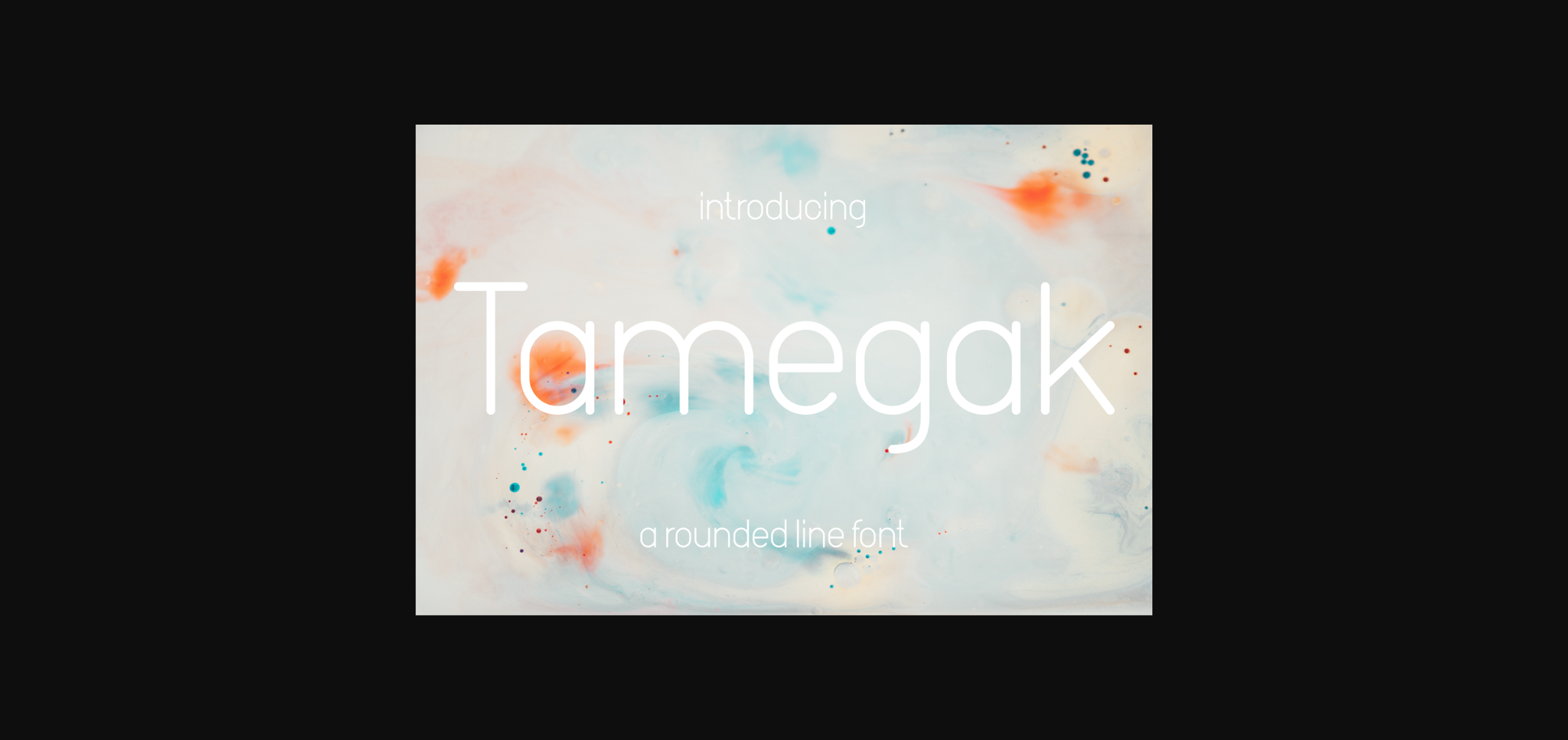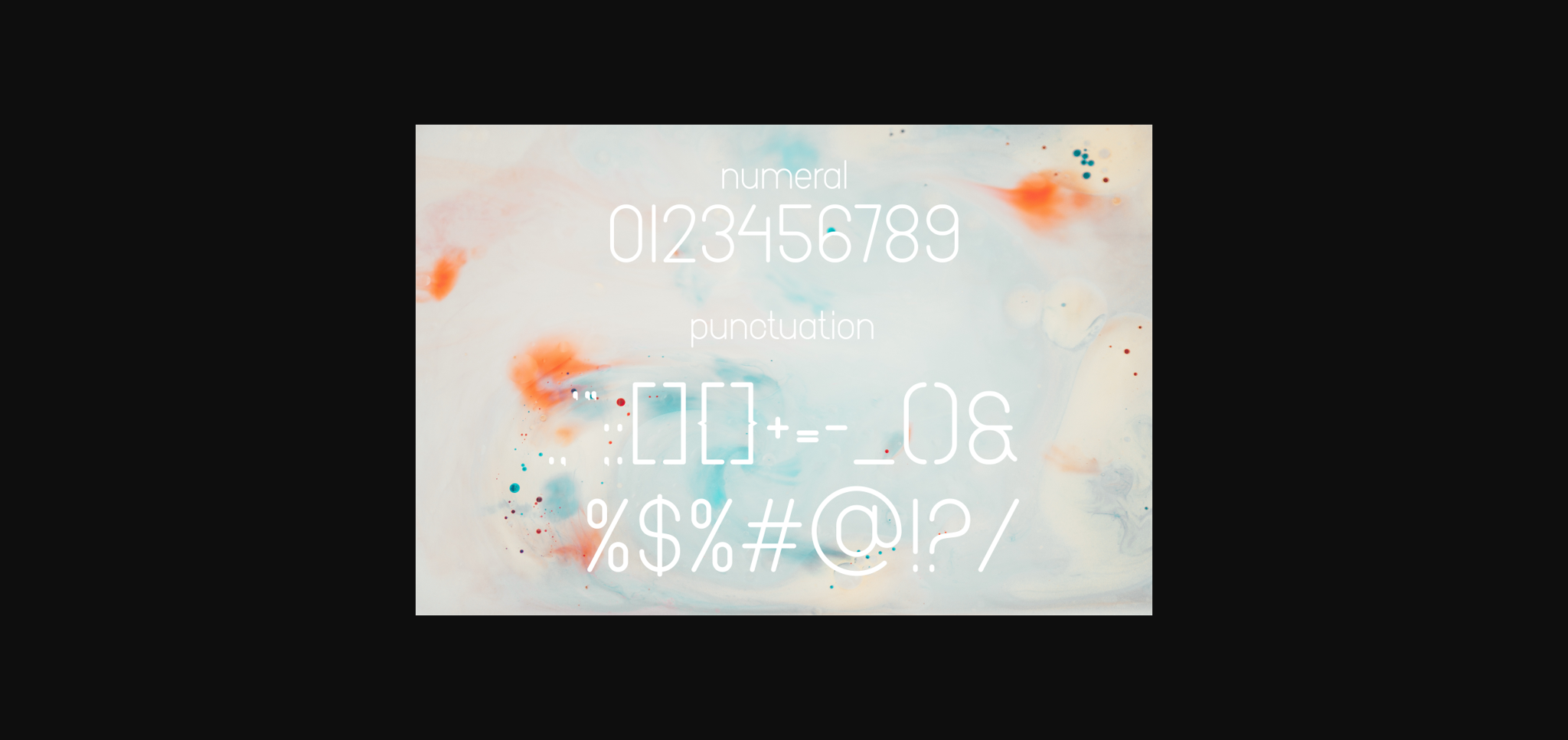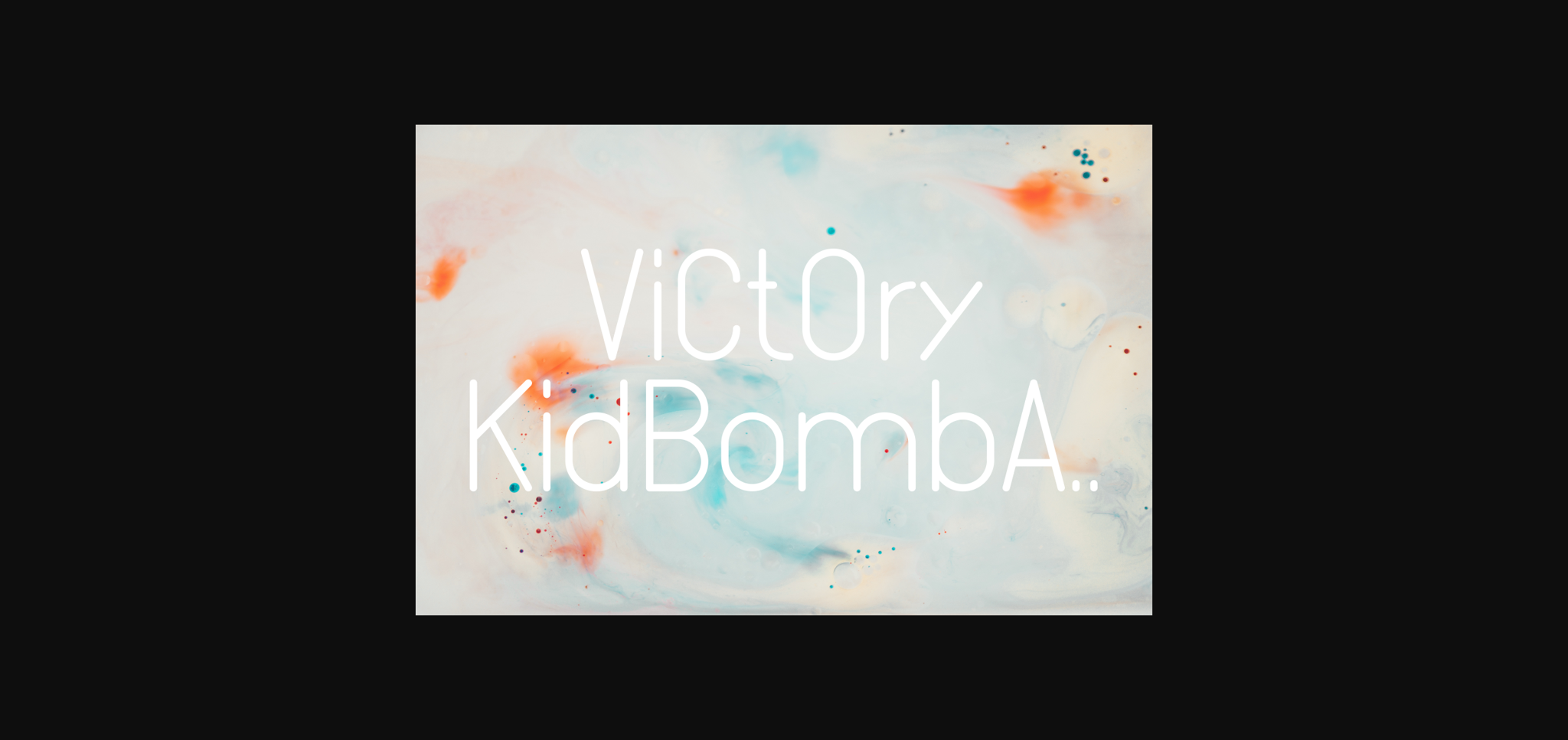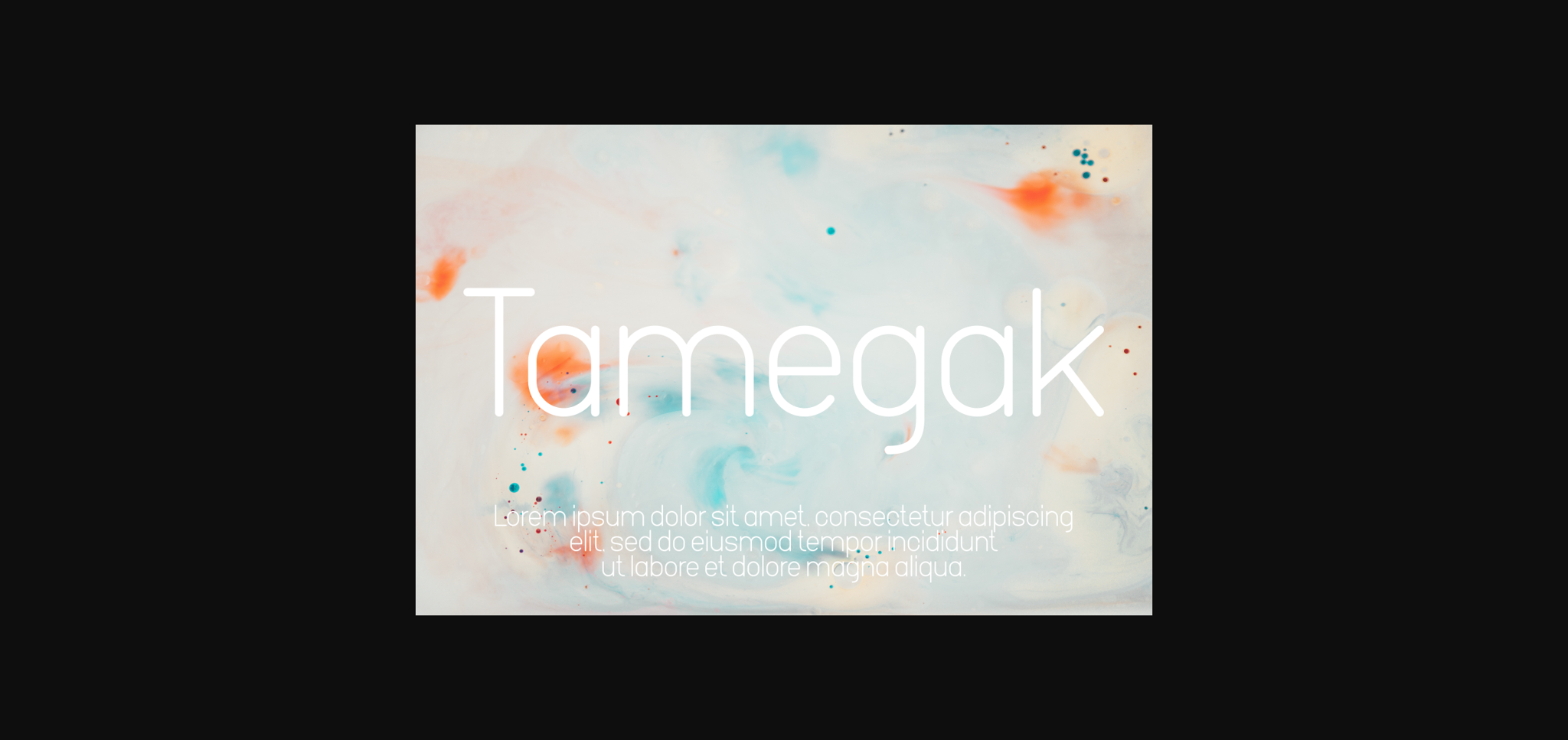
About Tamegak Font
Tamegak is a line and rounded font. Whether you use it for designs related to cartoons, children’s games, quotes, titles, brand names, book covers, posters, or any creation that requires a touch of beauty, this font is the right choice.